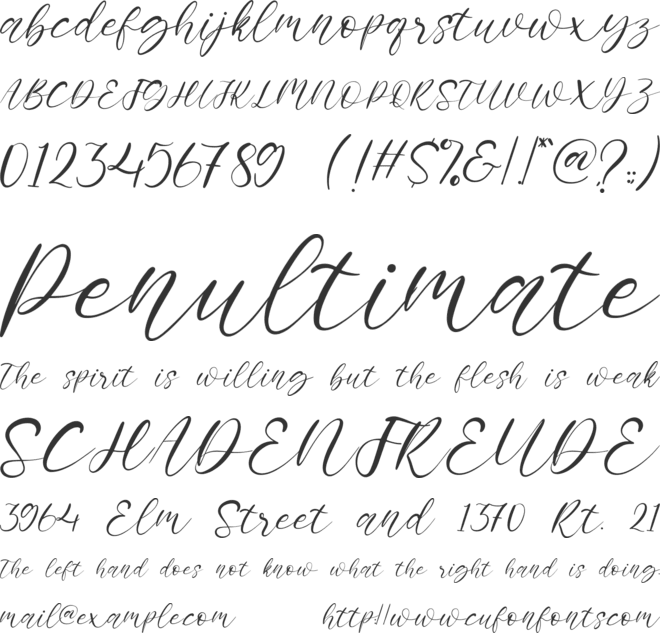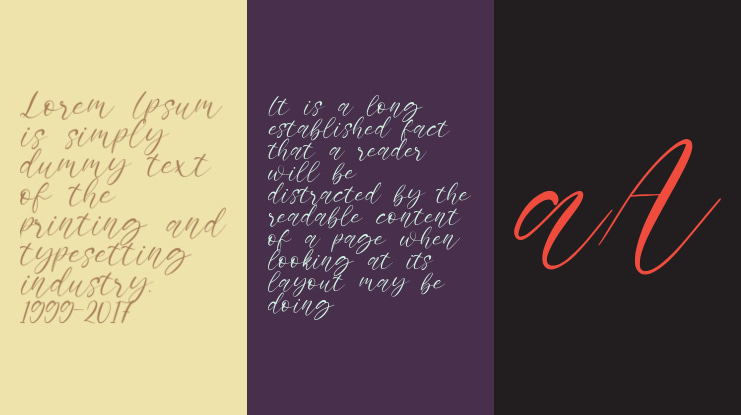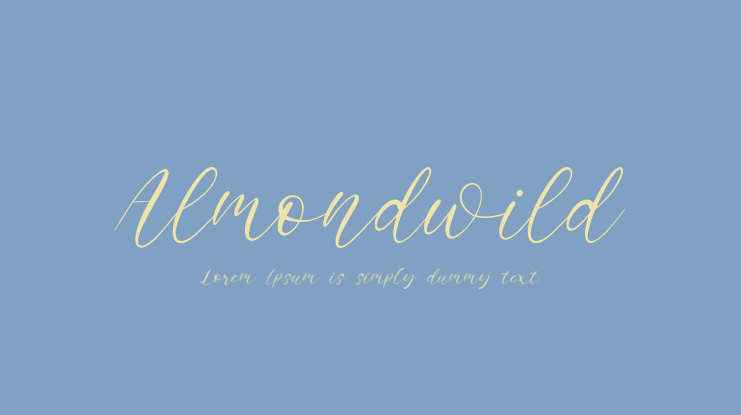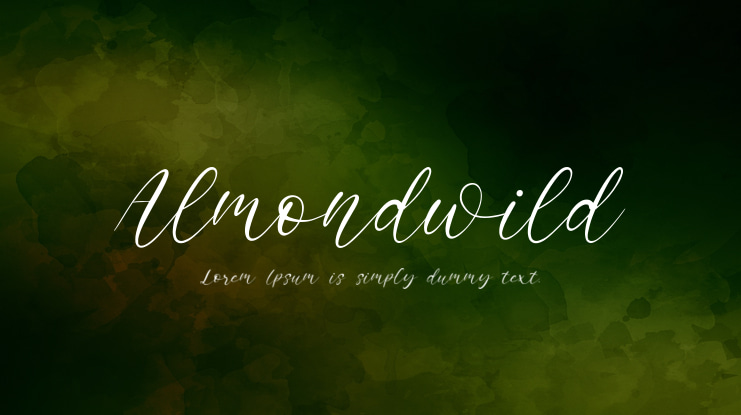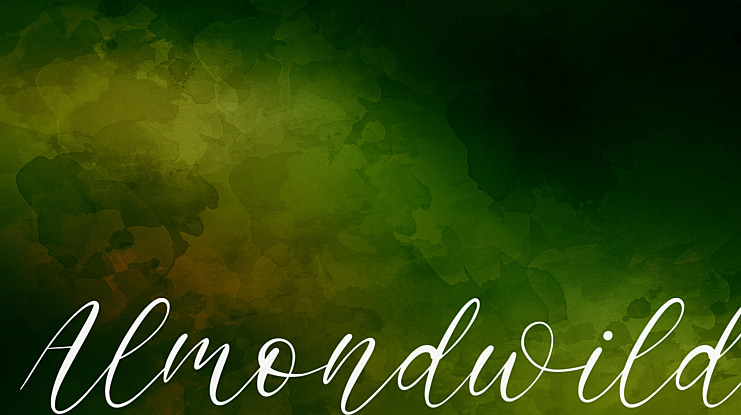
Almondwild Font
Proudly Present, Almondwild
Almondwild is a Modern Calligraphy Font
Almondwild is perfect for product packaging, branding project, megazine, social media, wedding, or just used to express words above the background.